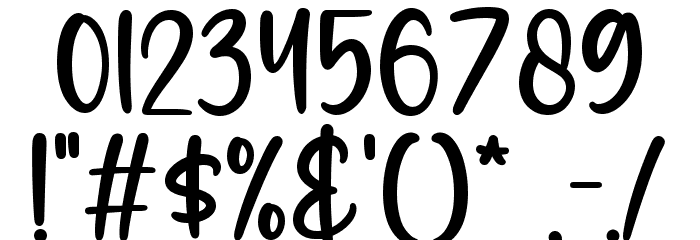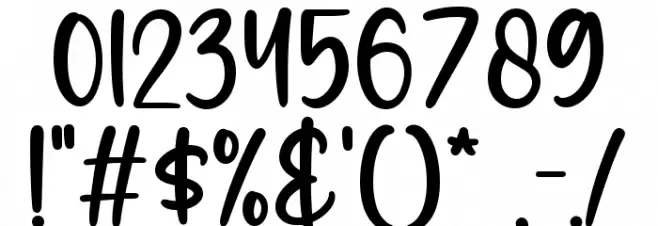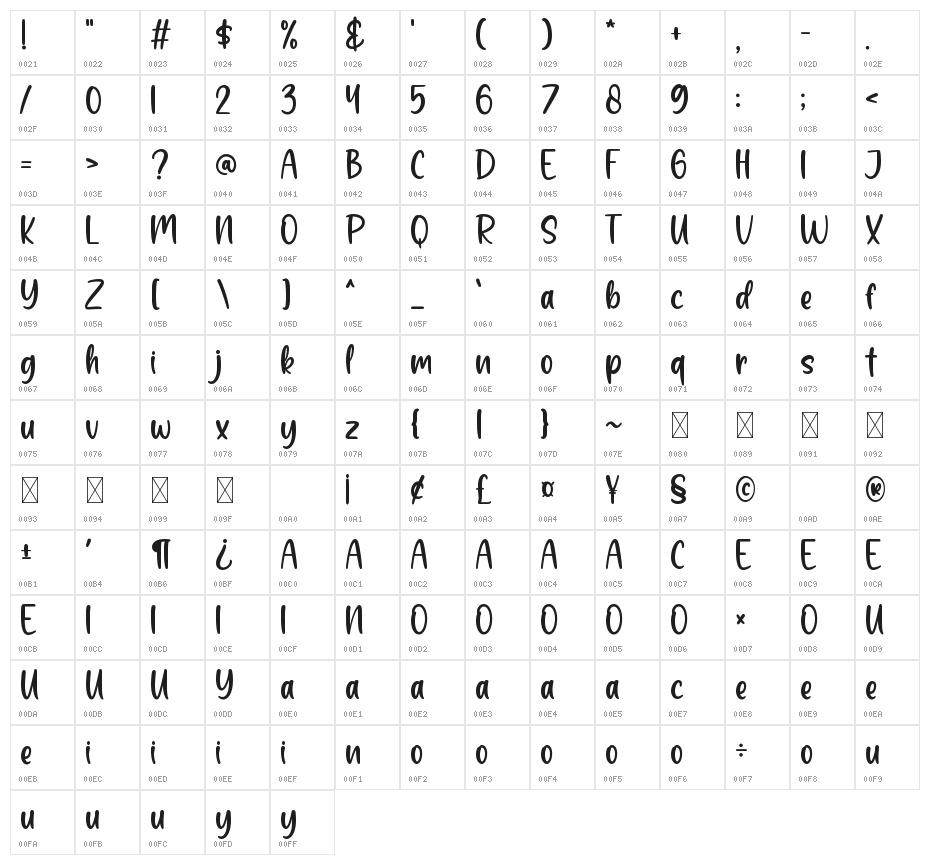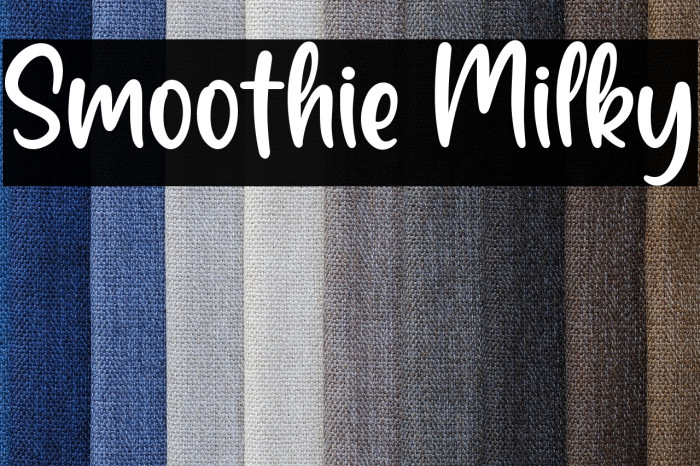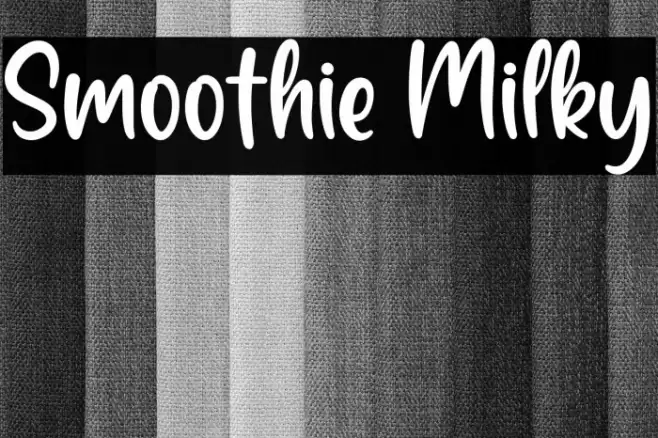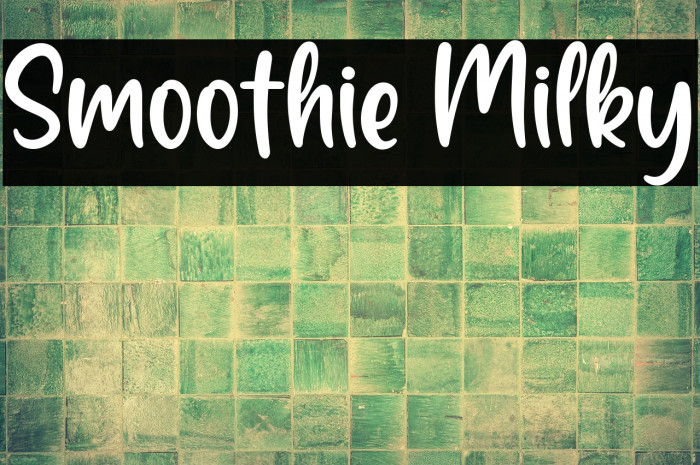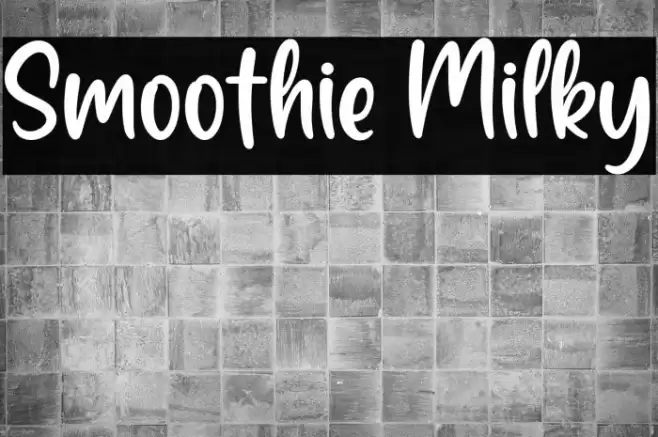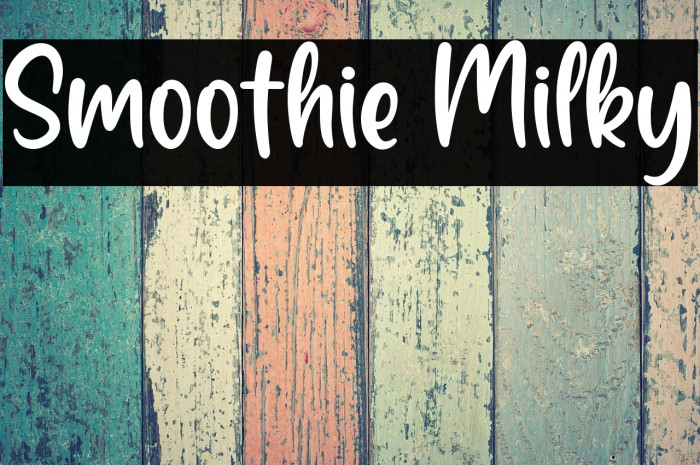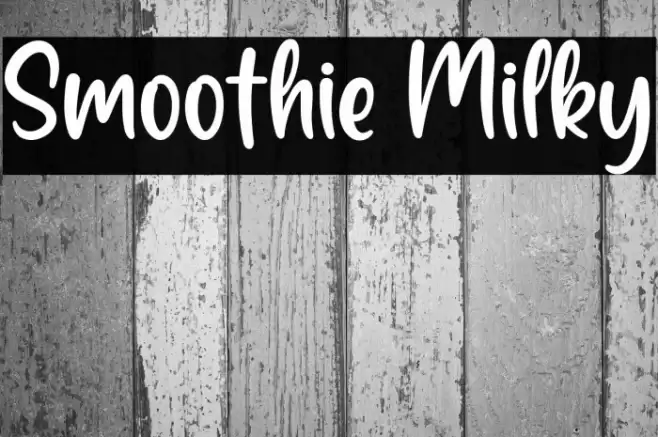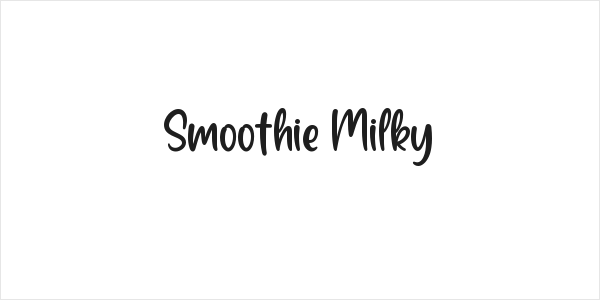
Smoothie Milky Font
Smoothie Milky Description
This playful and energetic font features a handwritten style with smooth, rounded edges and a casual, friendly appearance. The letters are slightly slanted, giving a dynamic flow to the text. The uppercase and lowercase characters are well-balanced, with a consistent stroke width that maintains readability. Numbers and special characters are crafted with the same playful touch, making them suitable for a variety of creative projects. The font's informal style is perfect for designs that require a personal and approachable feel.
| Use Case | Logos, Headlines, Social media graphics |
| Proposed Projects | Ideal for greeting cards, children's books, playful branding, and social media graphics. |